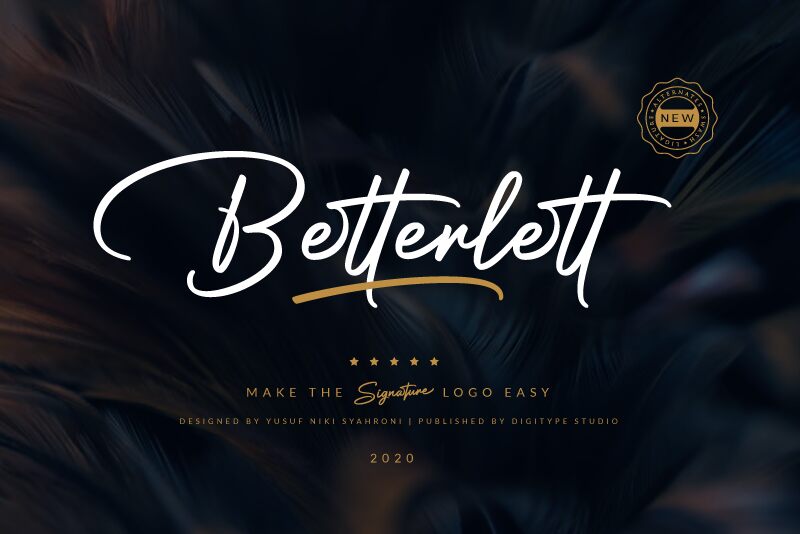
Betterlett Swash is a charming handwritten font designed by Digitype Studio. With its semi-light weight and graceful swashes, this font exudes elegance and sophistication. The Betterlett family is perfect for projects that require a touch of personalization and authenticity, such as wedding invitations, greeting cards, and branding materials. Whether you're looking to add a feminine touch or create an artistic flair, Betterlett Swash will help elevate your designs with its unique charm and character. Try it out today and see how it can enhance your next project!
Betterlett Swash